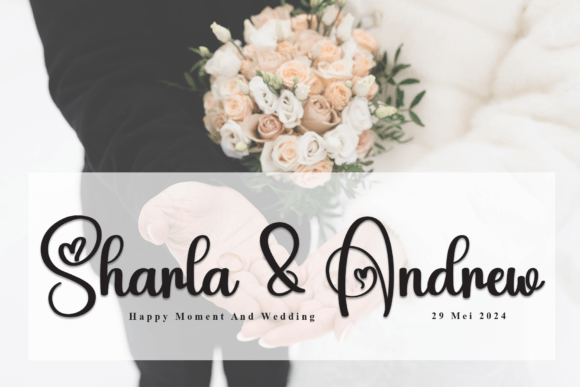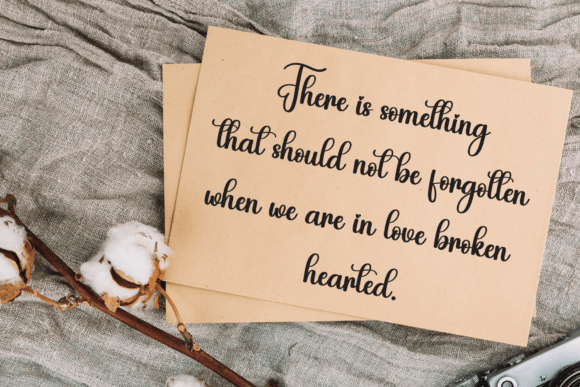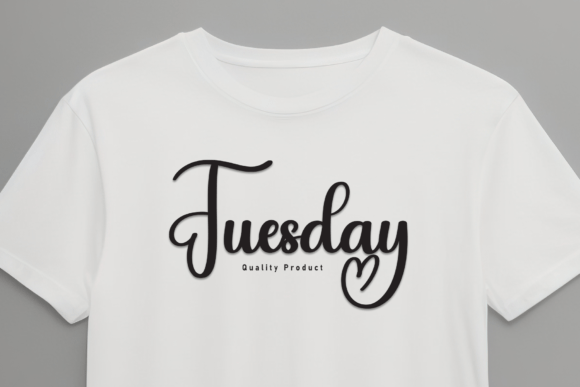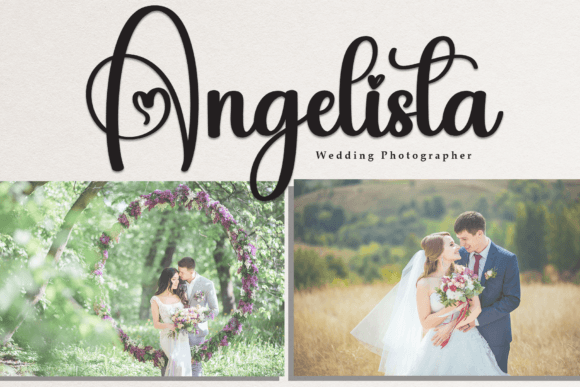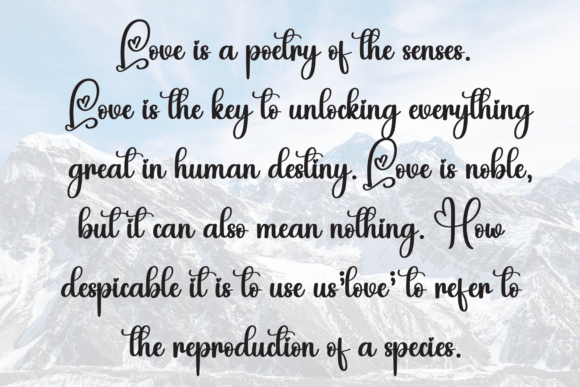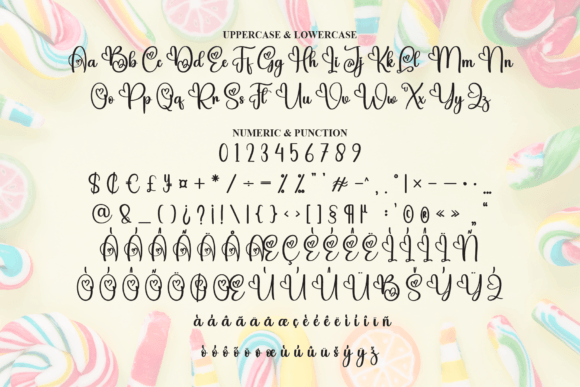
The Sweet Spot: Discovering the Charm of Candy Font
I’ll never forget the design project that led me to discover the delightful Candy font. I was working on a custom wedding invitation for a close friend, and I was struggling to find the perfect typeface that would capture the warmth and whimsy of their special day. The client wanted something elegant yet playful, and I was on a mission to deliver. That’s when I stumbled upon Candy, a charming handwritten font that instantly stole my heart.
A Personal Review: What I Love About Candy Font
Candy font has quickly become a staple in my design toolkit, and for good reason. Here are a few things that I absolutely love about it:
- ✨ Smooth, flowing strokes that exude elegance and sophistication
- ✅ Whimsical character that adds a touch of personality to any design
- 💕 Perfect blend of cursive and print elements for a unique look
- 🎉 Highly versatile and adaptable to various design projects
While Candy font is undoubtedly a gem, it’s not without its quirks. Here are a few things to keep in mind:
- 🤔 Some characters may appear a bit narrow or cramped, especially in larger font sizes
- ⚠️ Limited availability of certain OpenType features, such as ligatures or stylistic alternates
The Story Behind Candy Font
Candy font was designed by a talented typographer who’s passionate about creating beautiful, handmade typefaces. Inspired by traditional calligraphy and modern digital design, Candy font is the result of a meticulous process that involved sketching, refining, and testing. The goal was to create a font that’s both elegant and approachable, with a unique character that would add warmth and personality to any design.
- Q: What type of projects is Candy font best suited for?
- A: Candy font is perfect for a wide range of projects, including wedding invitations, branding, packaging, and creative hobby projects.
- Q: Is Candy font available in multiple languages?
- A: Candy font may not support all languages, but it does include a range of characters and glyphs to accommodate various languages and writing systems.